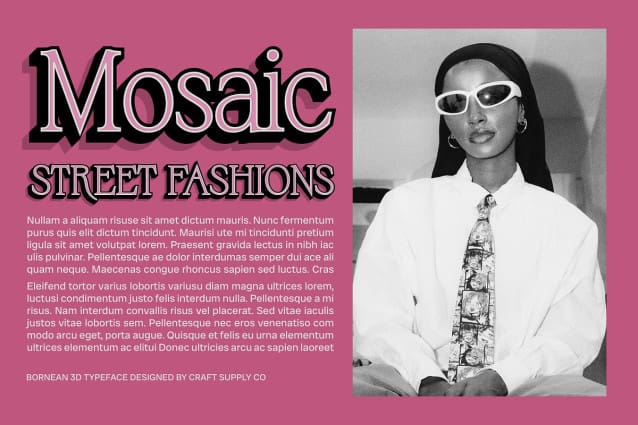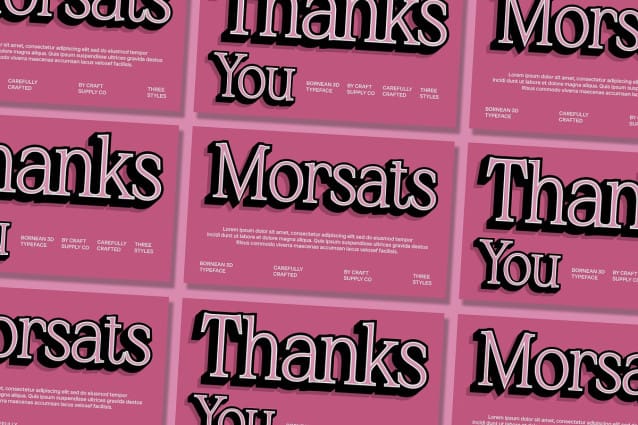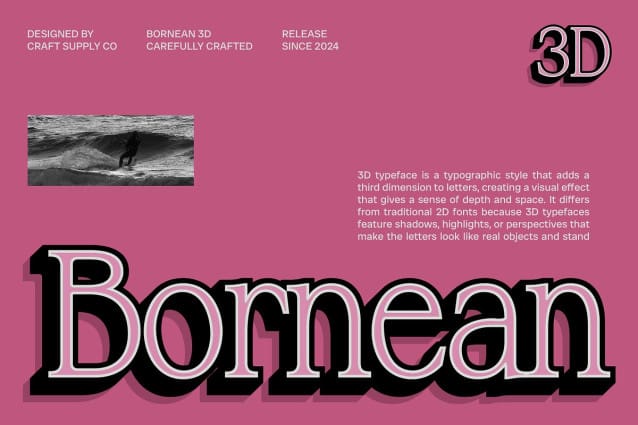
Bornean 3D Font
Bornean 3D Font is a modern serif font that beautifully balances elegance and sophistication through its sleek and clean design. The font features subtle details and balanced proportions, offering a contemporary appearance that is both inviting and refined. Ideal for projects that seek to convey a sense of luxury and professionalism, Bornean 3D stands out as a versatile choice for various design applications.
Enhanced 3D Effect for Visual Dimension and Depth Enhanced with a captivating 3D effect, Bornean 3D adds significant visual dimension and depth to its character. This three-dimensional quality not only enriches its appearance but also draws attention, making it an engaging choice for any design. The interplay of light and shadow in the 3D rendering accentuates the font’s sophisticated elements, resulting in a dynamic aesthetic that enhances the overall design.
Versatile for Various Design Applications Bornean 3D is perfect for a wide range of design applications, including invitations, branding, and promotional materials. Its elegant and contemporary style ensures it adapts well to both formal and creative contexts, making it suitable for everything from high-end event invitations to corporate branding projects. Whether you’re looking to create an impactful logo or a stylish marketing campaign, Bornean 3D delivers versatility and elegance.